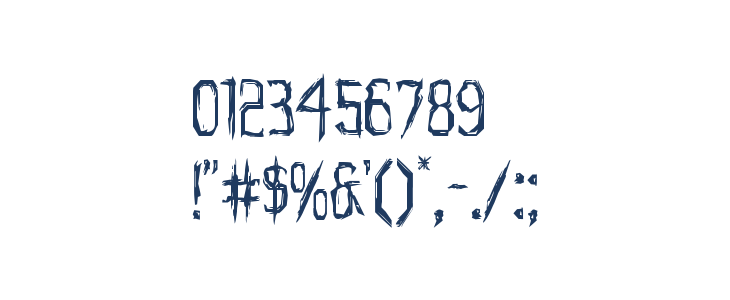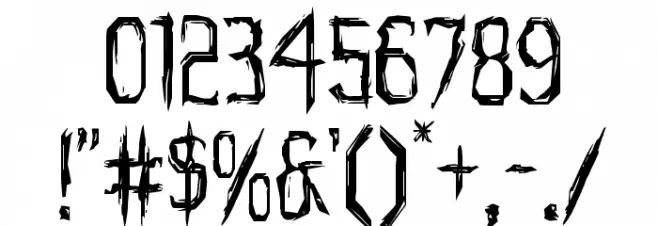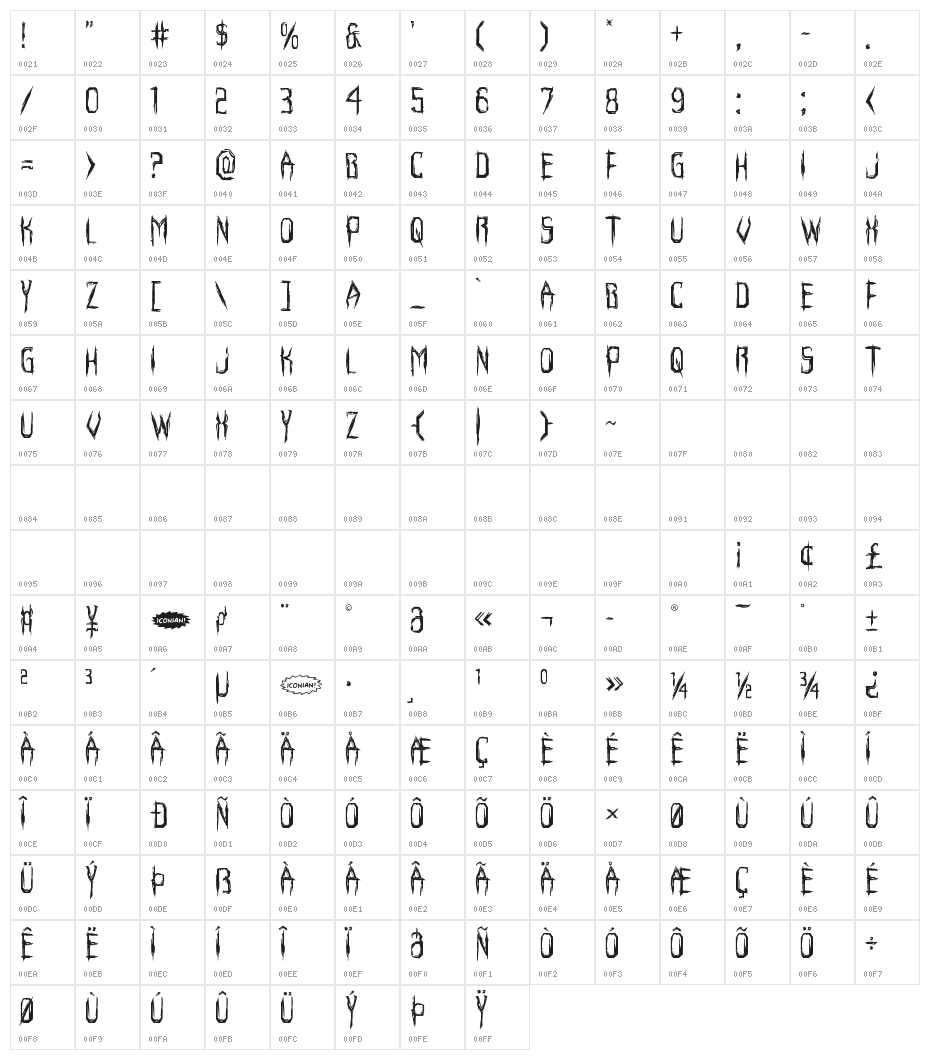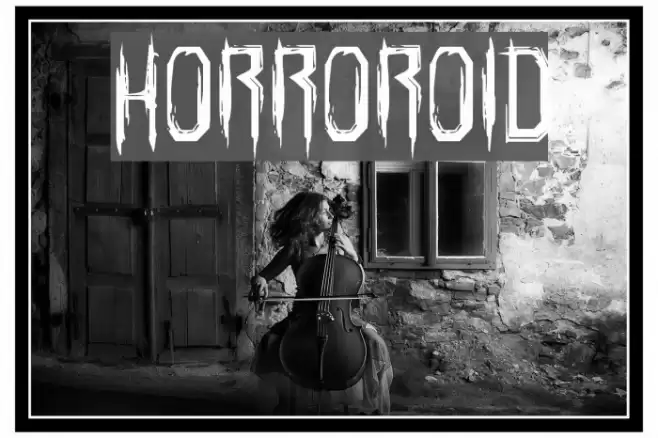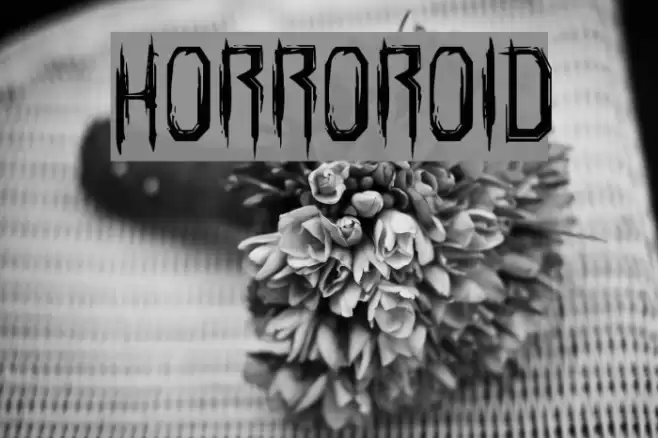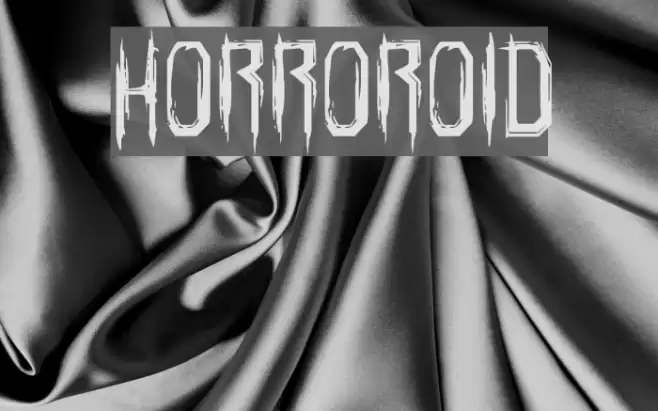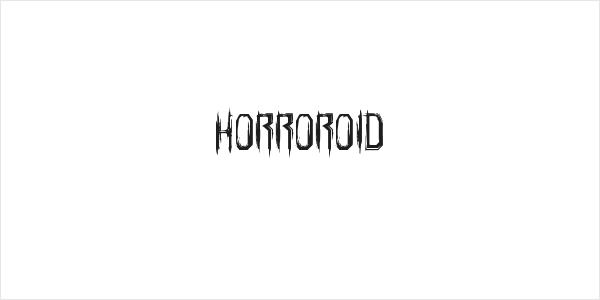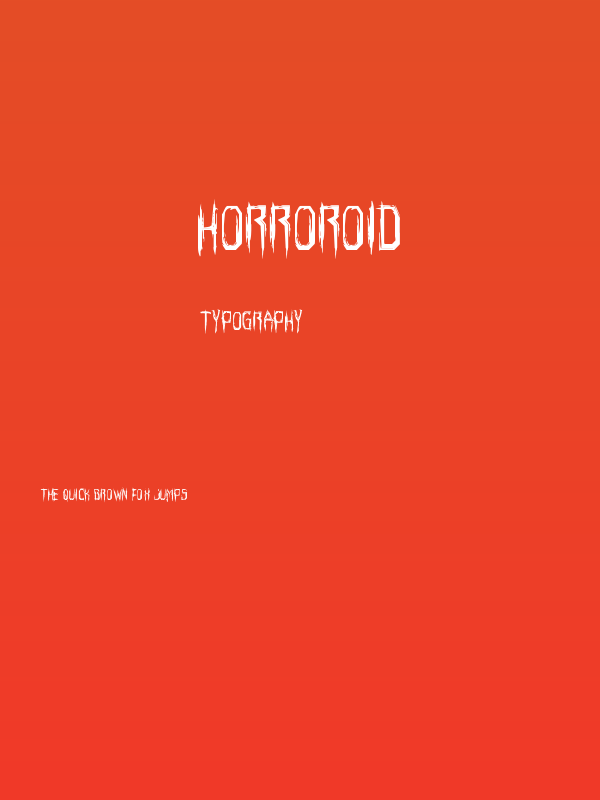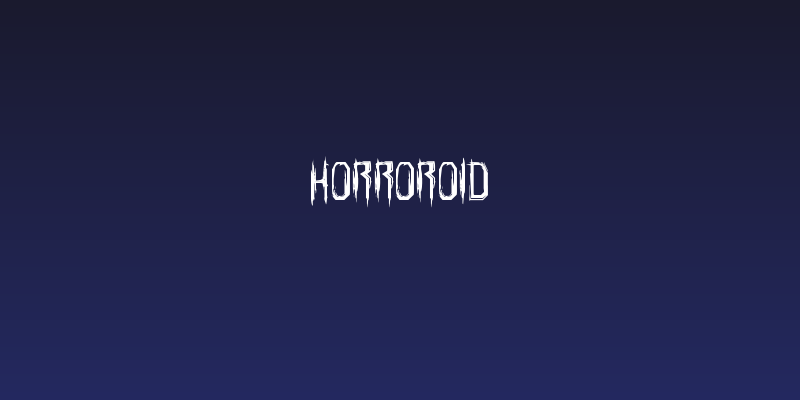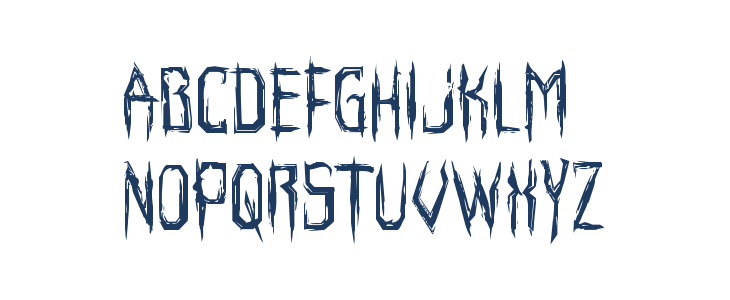
Horroroid Font
Horroroid Description
This font features a jagged, distressed appearance, reminiscent of horror themes. Each character is designed with sharp, irregular edges, giving it a menacing and eerie look. The strokes are uneven, with varying thickness that adds to the chaotic and unsettling aesthetic. The uppercase and lowercase letters maintain a consistent style, with numbers and special characters following suit. This font is ideal for creating a spooky atmosphere, perfect for Halloween-themed projects or horror movie posters. Its unique design captures attention and evokes a sense of fear and mystery.
| Proposed Projects | Horror movie posters, Halloween invitations, spooky event flyers, haunted house signage. |